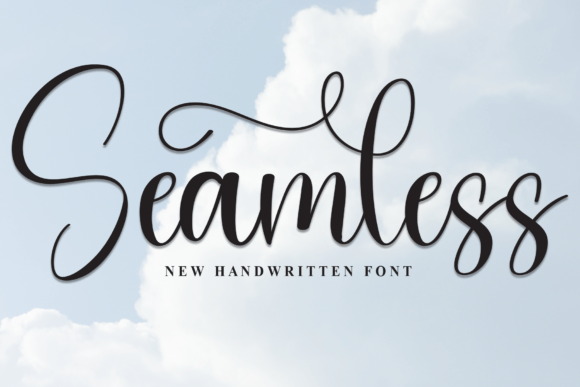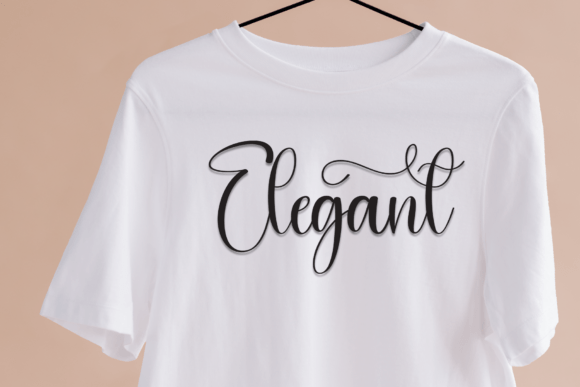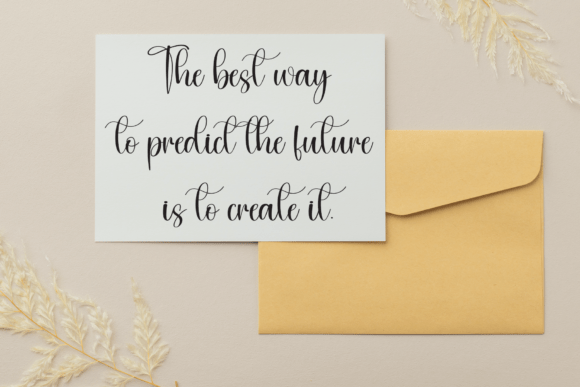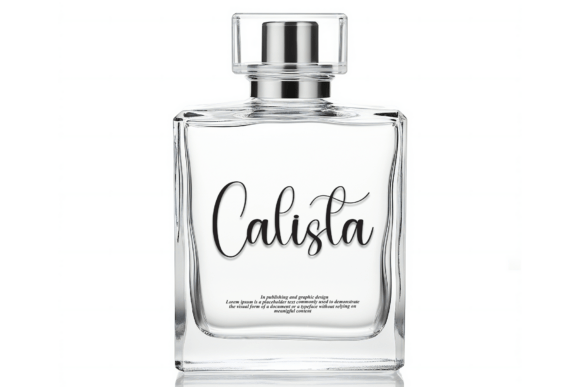
Seamless Font
About the Seamless Font
Meet Seamless Font, a stunning font that brings a touch of elegance and professionalism to any design. Seamless is a stylish handwritten script font that captures elegance and playfulness in every stroke. With flowing curves and a natural rhythm, it adds a personal, charming touch to invitations, branding, and social media. Its graceful design brings warmth, sophistication, and creativity to any project
Seamless Font Usage Examples
Seamless Font Example